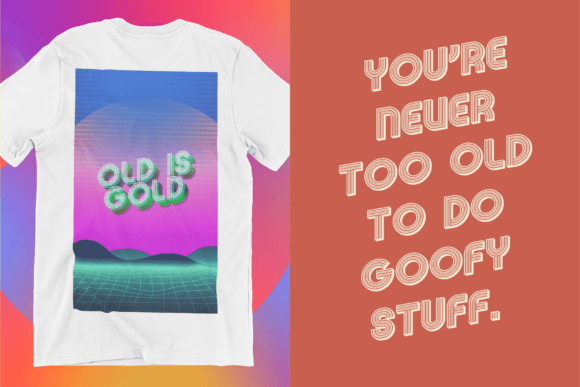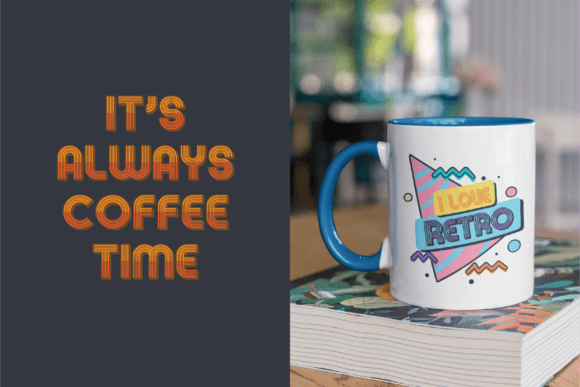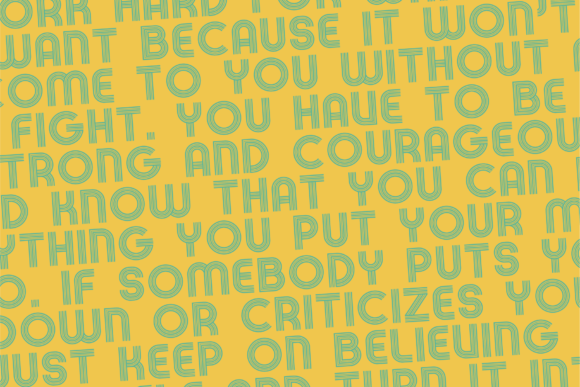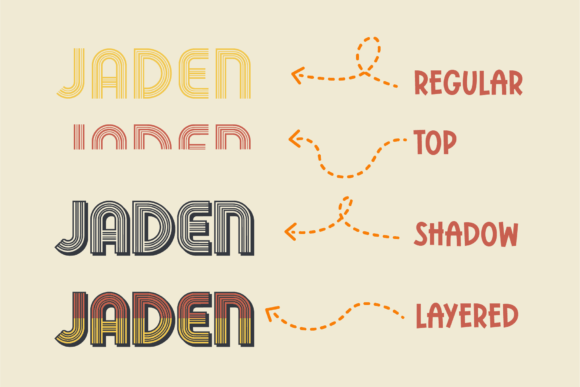
Getting Your Creative Groove On
Have you ever been working on a project, and suddenly, the perfect font pops into your head? It’s like a lightbulb moment that makes all the difference. For designers, this feeling is a familiar one, and it’s what drives us to push the boundaries of creativity. Whether it’s a branding project, a social media campaign, or a simple poster, the right font can elevate your design and make it truly stand out.
Enter the Funky Fresh Font, a retro-inspired layer font family that’s guaranteed to bring that creative spark to your next project. This versatile font is designed to enhance any creation, making it a valuable addition to any designer’s font library.
Funky Fresh Font Key Features
- Font Family: Funky Fresh Font is a unique sans-serif font designed to add a touch of funkiness to any design.
- Size: The font comes in 4 different sizes: Regular (400 units per em), Bold (700 units per em), Italic (400 units per em), and Bold Italic (700 units per em).
- Unique Characteristics: Funky Fresh Font features an innovative blend of geometric shapes and organic lines, giving it a distinctive and eye-catching look.
- Language Support: Supports a wide range of languages, including Latin, Cyrillic, and Greek alphabets, making it a versatile font for international designs.
Funky Fresh Font Review
Overall, I’m quite impressed with the Funky Fresh Font. It’s got a unique vibe that’s sure to grab attention.
- Highly customizable: The font offers a wide range of styles and customization options, making it perfect for designers who like to experiment.
- Versatile: It works well for both digital and print media, from social media posts to posters and billboards.
- Legibility: Despite its playful nature, the font is surprisingly easy to read, even at small sizes.
- Overuse potential: The font’s quirky style can be overwhelming if used too extensively, so be sure to balance it with more neutral options.
- Not ideal for formal texts: While it’s perfect for creative projects, it might not be the best choice for formal documents or academic papers.
Overall, I’d recommend Funky Fresh Font for designers looking for a fun and attention-grabbing font for their creative projects. With a little restraint, it can add a lot of personality to your designs.
3. Use the font’s fun and playful style to add visual interest to your presentation or document.
1. Pair Funky Fresh Font with other bold and playful fonts for a unique look.
2. Use Funky Fresh Font for headings and titles to draw attention to important information.
3. Experiment with different font sizes and colors to create visual hierarchy and emphasis.
1. Social media graphics and posts
2. Marketing materials and brochures
3. Event invitations and flyers
4. Blog and website headers and titles
Alternatives to Funky Fresh Font
Great Vibes is a fun, handwritten font perfect for creating a carefree and playful atmosphere. It’s ideal for use in posters, flyers, and social media graphics where you want to convey a lighthearted and youthful vibe.
Great Vibes is similar to Funky Fresh Font in its playful and casual nature, but it has a more elegant and refined feel to it. While Funky Fresh Font is more energetic and chaotic, Great Vibes is more subtle and sophisticated.
Alex Brush is a beautiful, handwritten font with a touch of elegance and sophistication. It’s perfect for use in branding, packaging, and editorial design where you want to convey a sense of luxury and refinement.
Alex Brush is more elegant and refined than Funky Fresh Font, but it still has a touch of whimsy and personality. It’s ideal for use in situations where you want to convey a sense of high-end quality and sophistication.
Carolyna Pro is a modern, sans-serif font with a touch of playfulness and sophistication. It’s perfect for use in digital design, such as web and mobile applications, where you want to convey a sense of modernity and innovation.